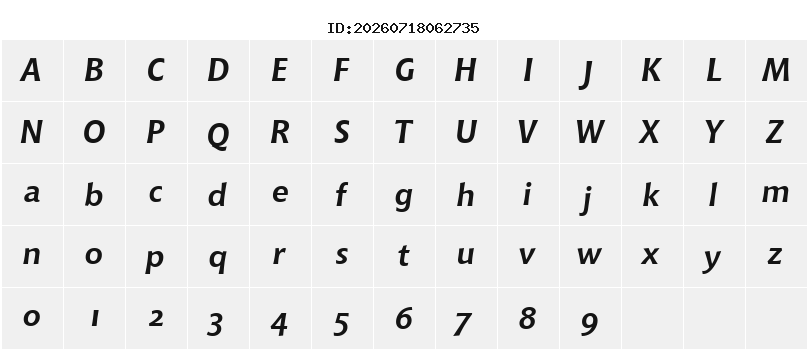
Chianti BdIt OSF BT Preview
• Font Name: Chianti BdIt OSF BT
• Font ID: Bitstream Chianti Bold Italic OSF, Humanist 797
• Full Font Name: Chianti BdIt OSF BT Bold Italic
• PostScript Name: ChiantiOSFBT-BoldItalic
About Chianti BdIt OSF BT.ttf
Chianti BdIt OSF BT.ttf is a modern, elegant sans-serif font designed for ultimate readability and visual harmony. Perfect for branding, headlines, web design, and print materials.